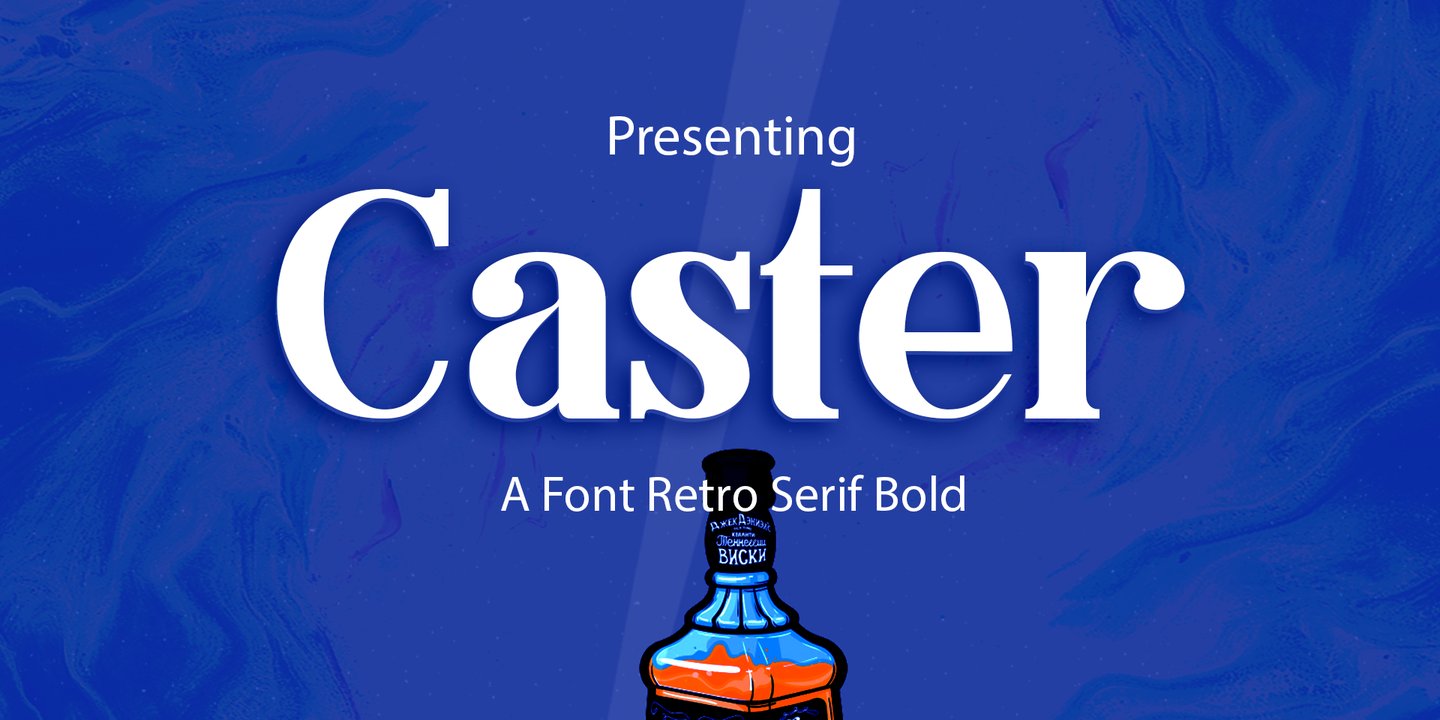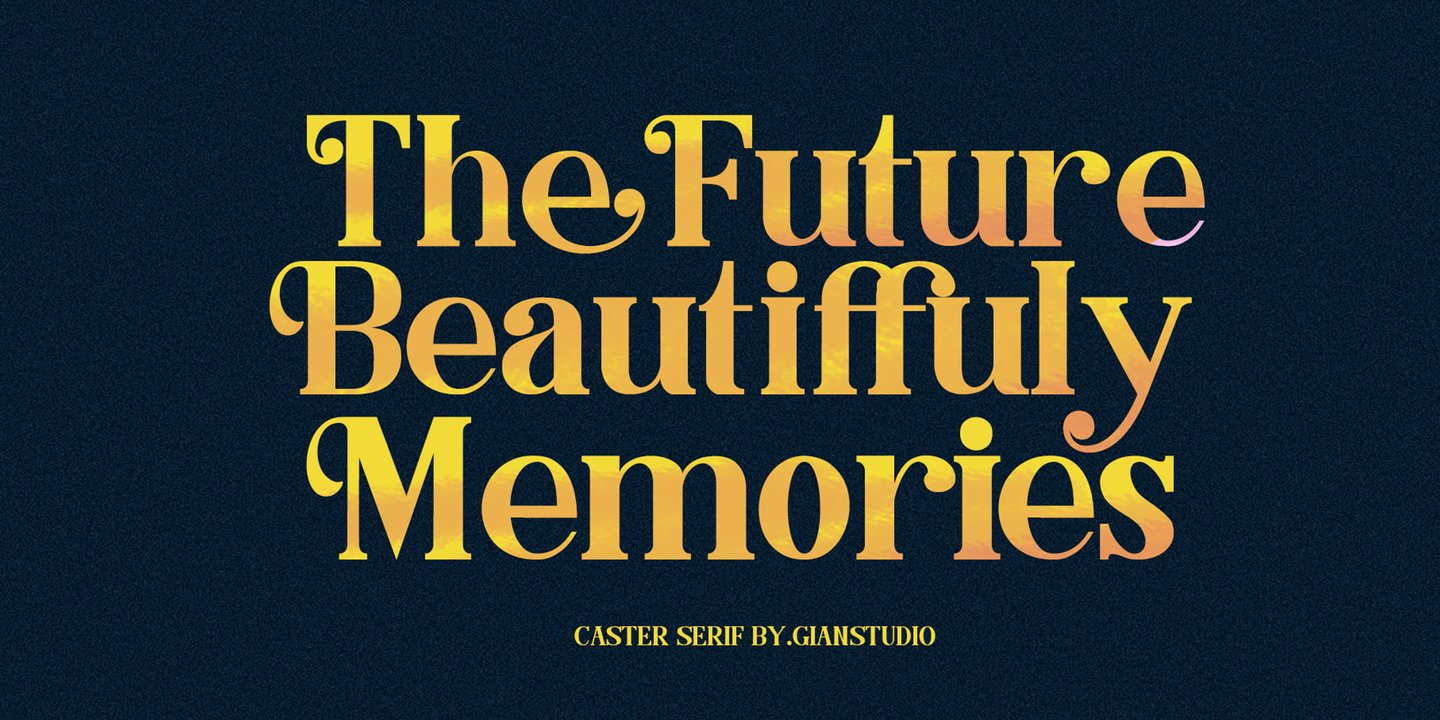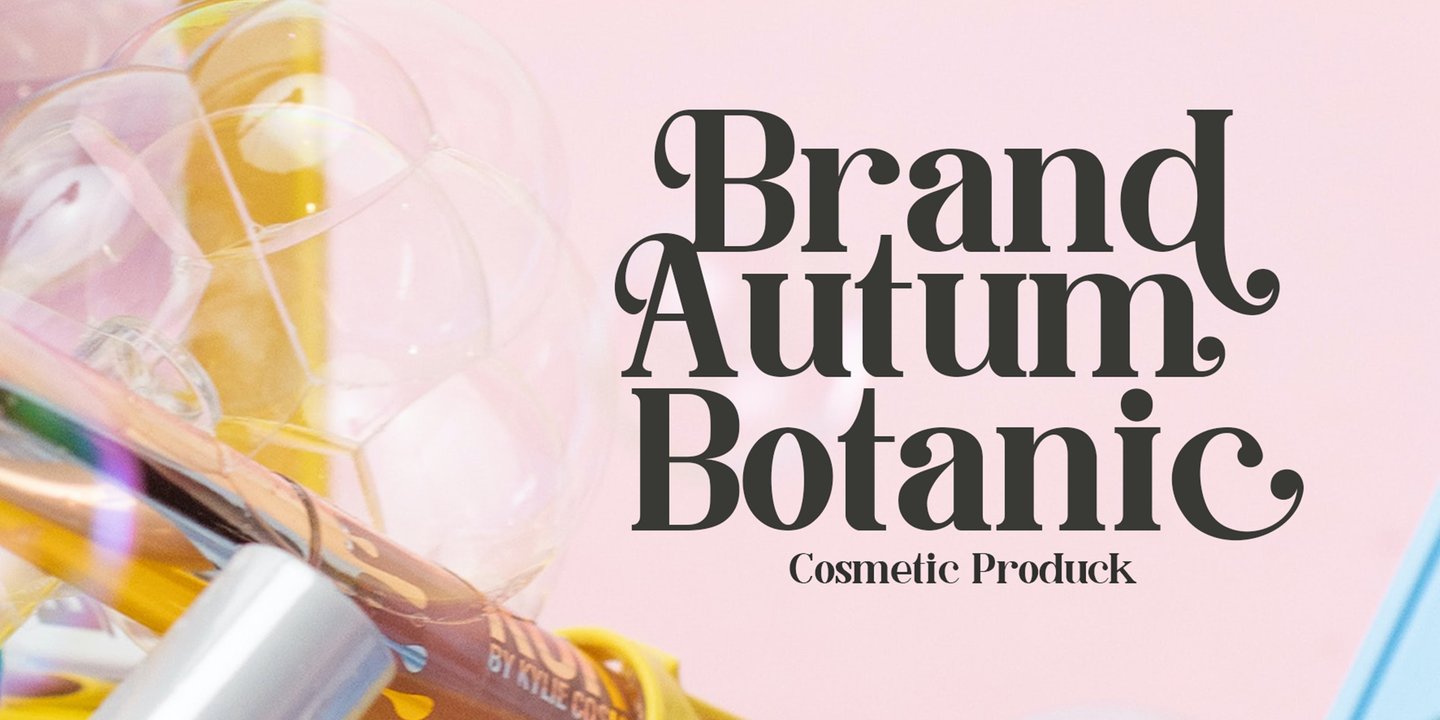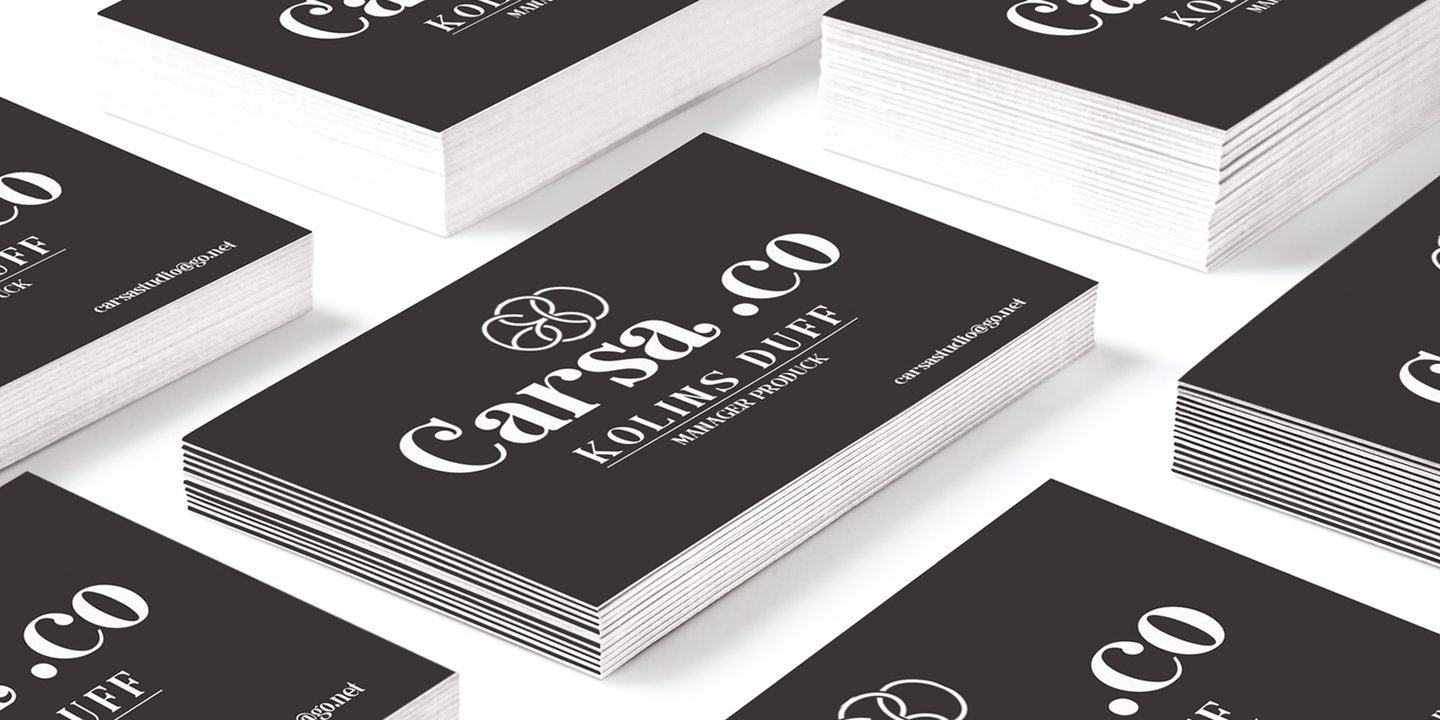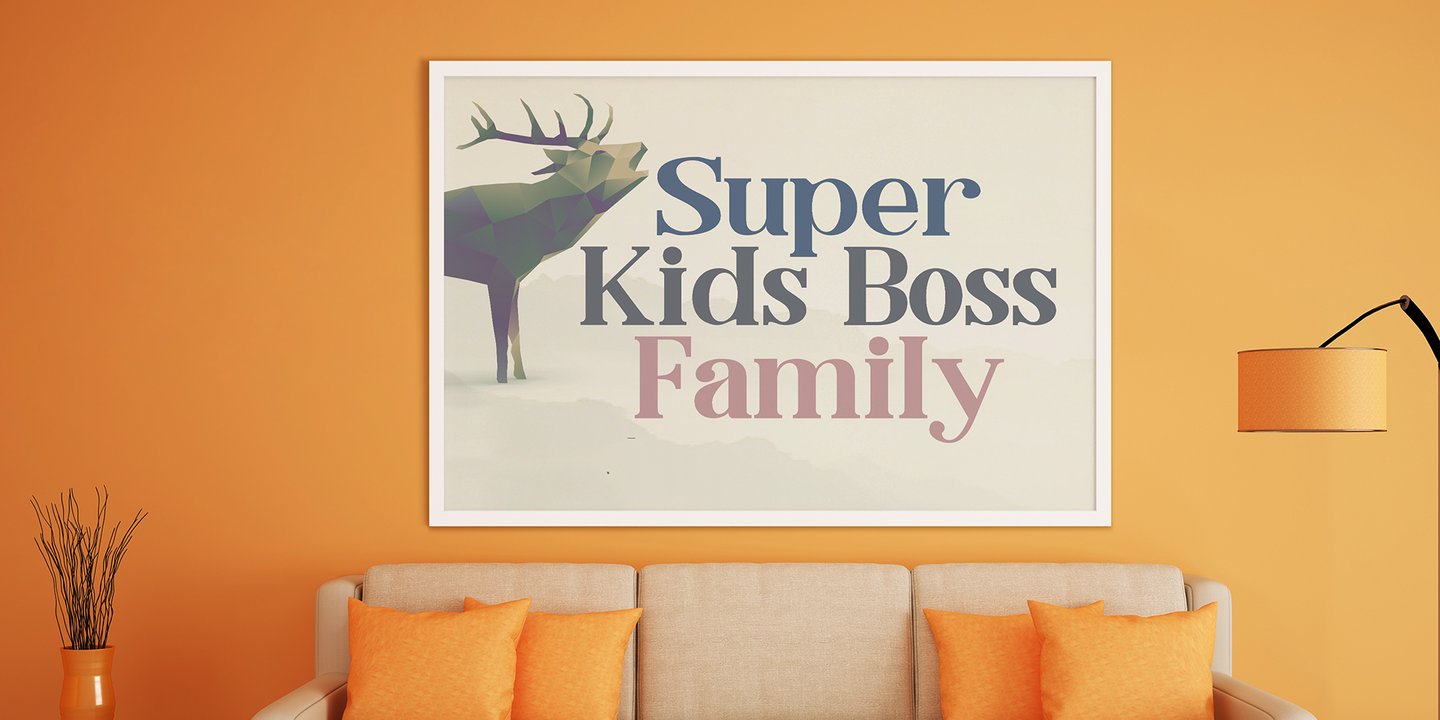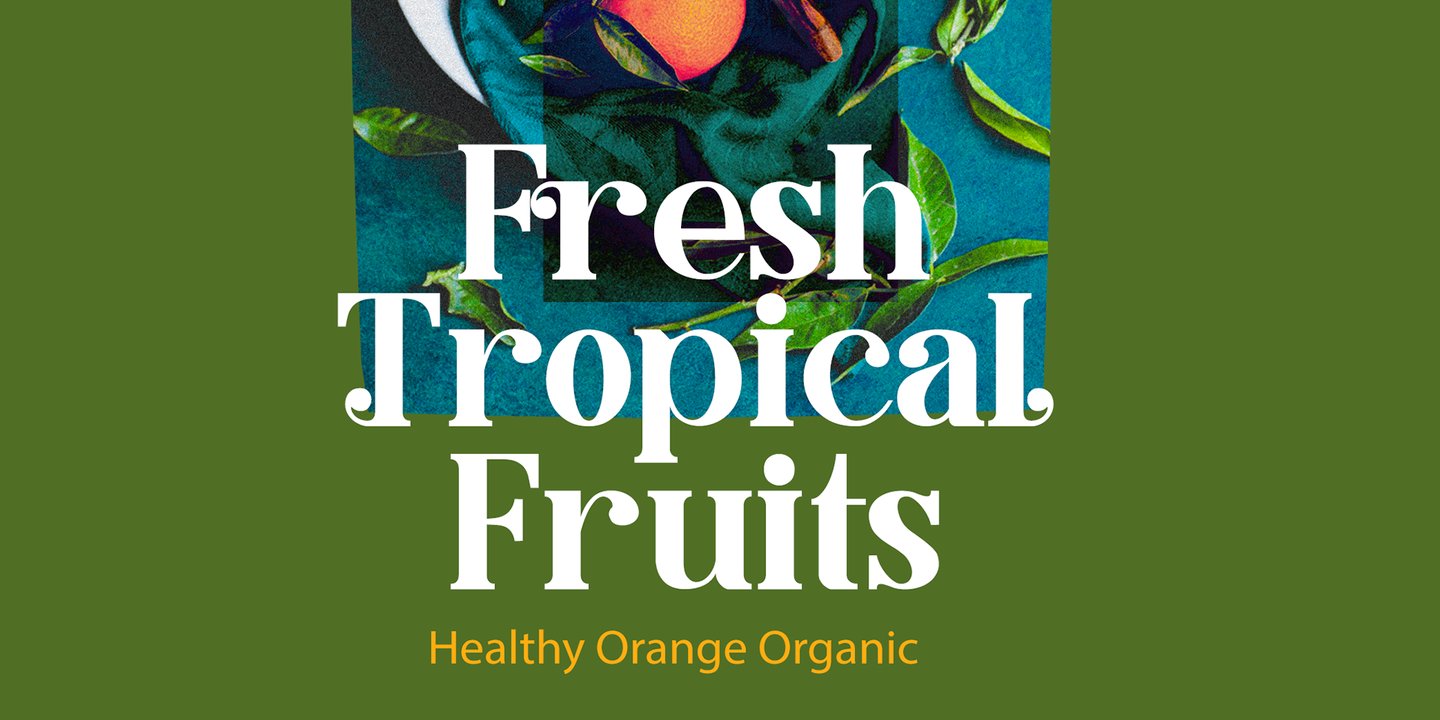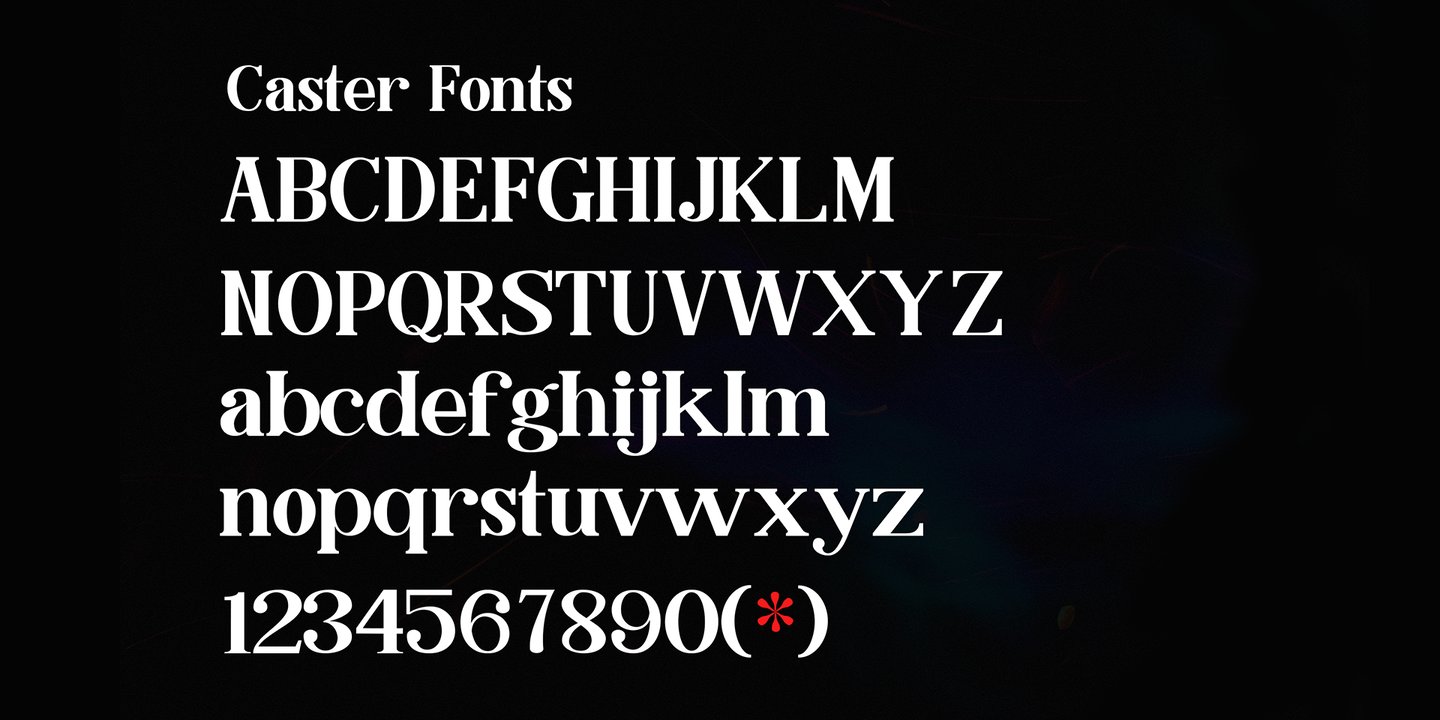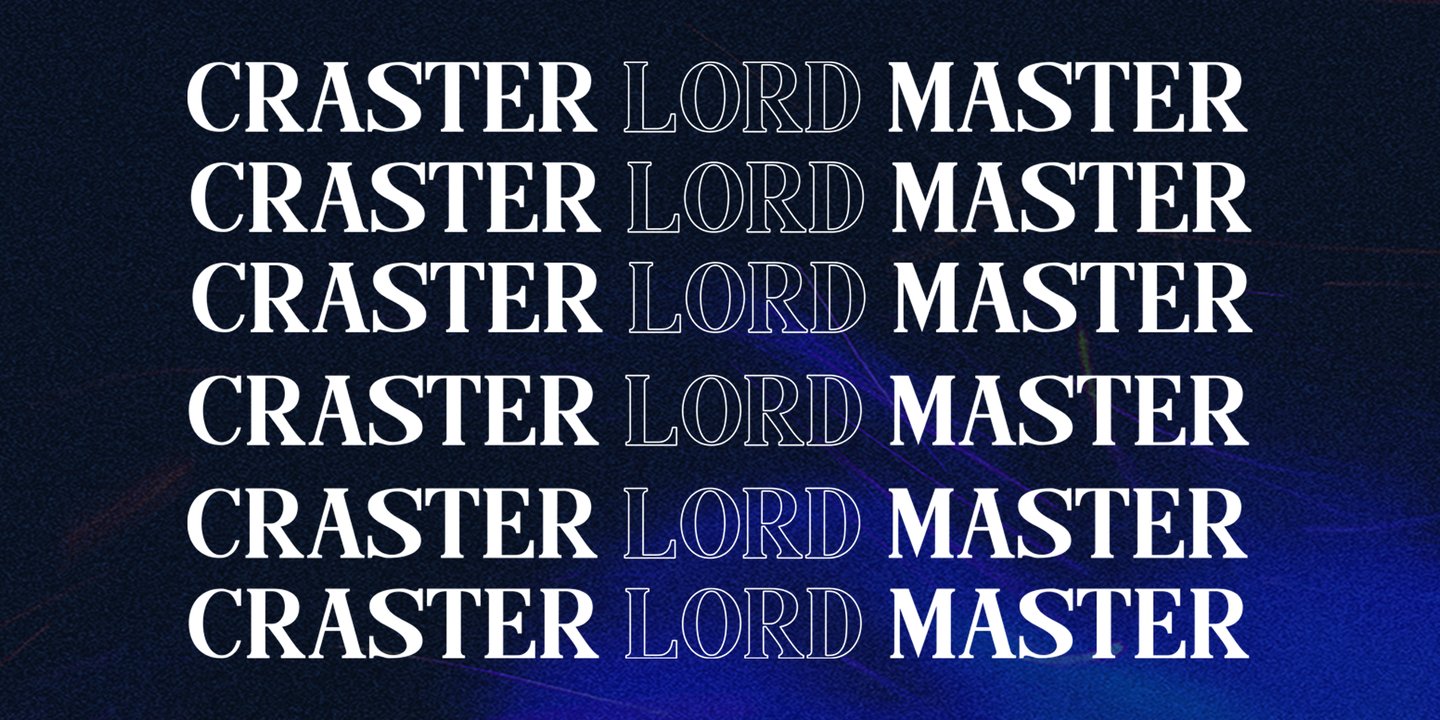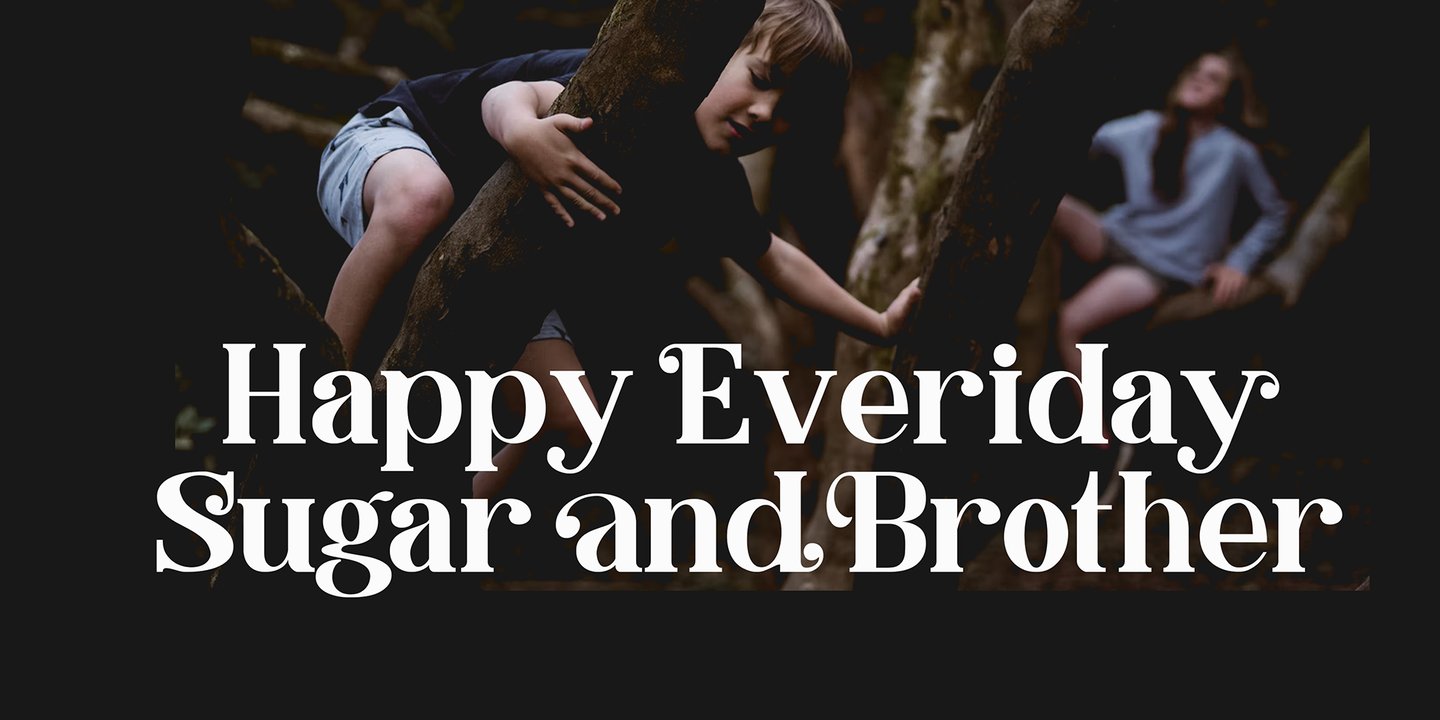
The newest Caster Serif is a complete serif typeface that is modern, simple and clean. As a typographic display it is useful for posters, logotypes, titles and short text in general.
This font is easy to read and bold, easy to play. the embellished serif of the hat is slightly different from the usual hat to create an alternative glyph. We also designed an attractive uppercase set inside, to enhance your design.